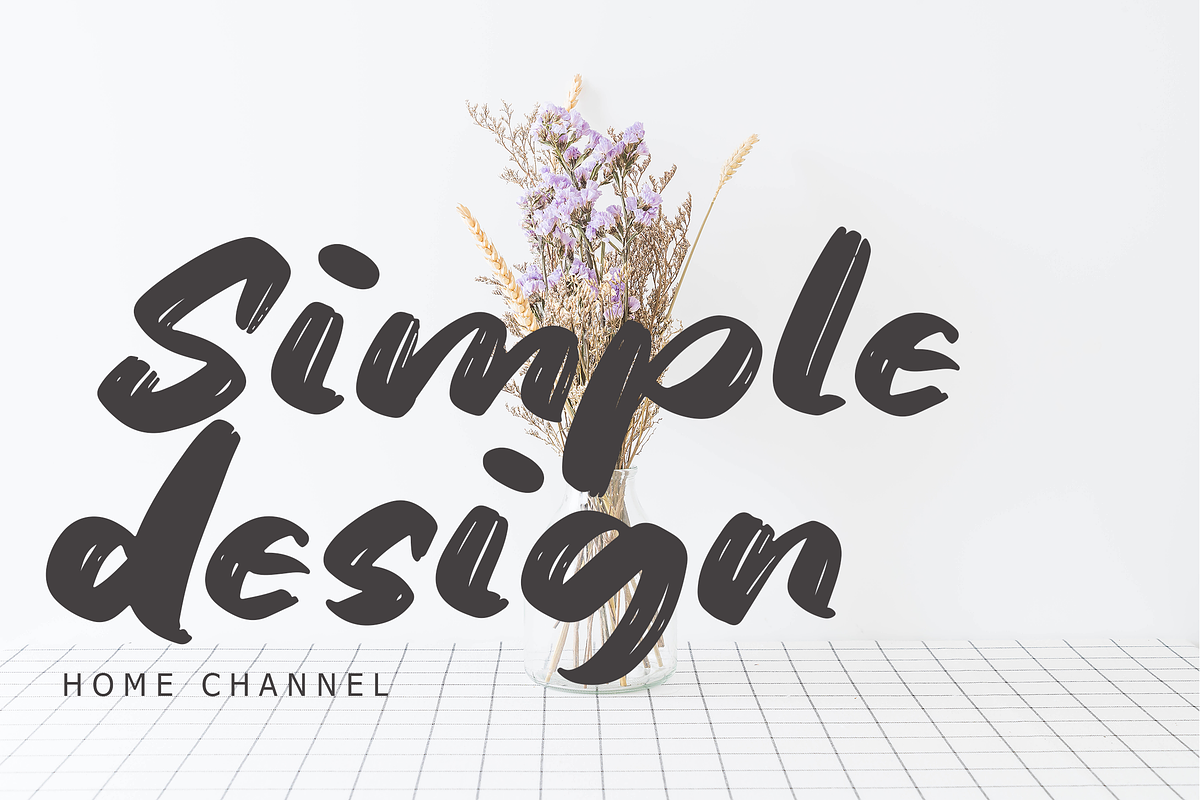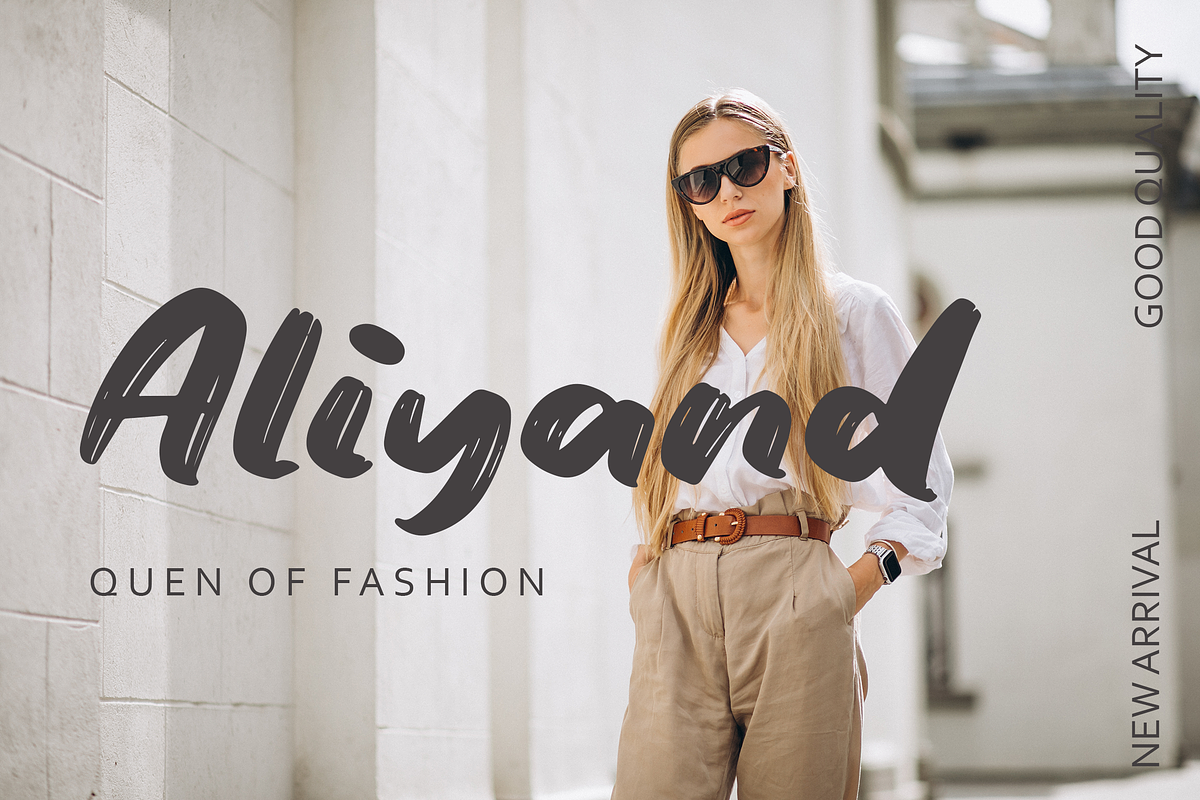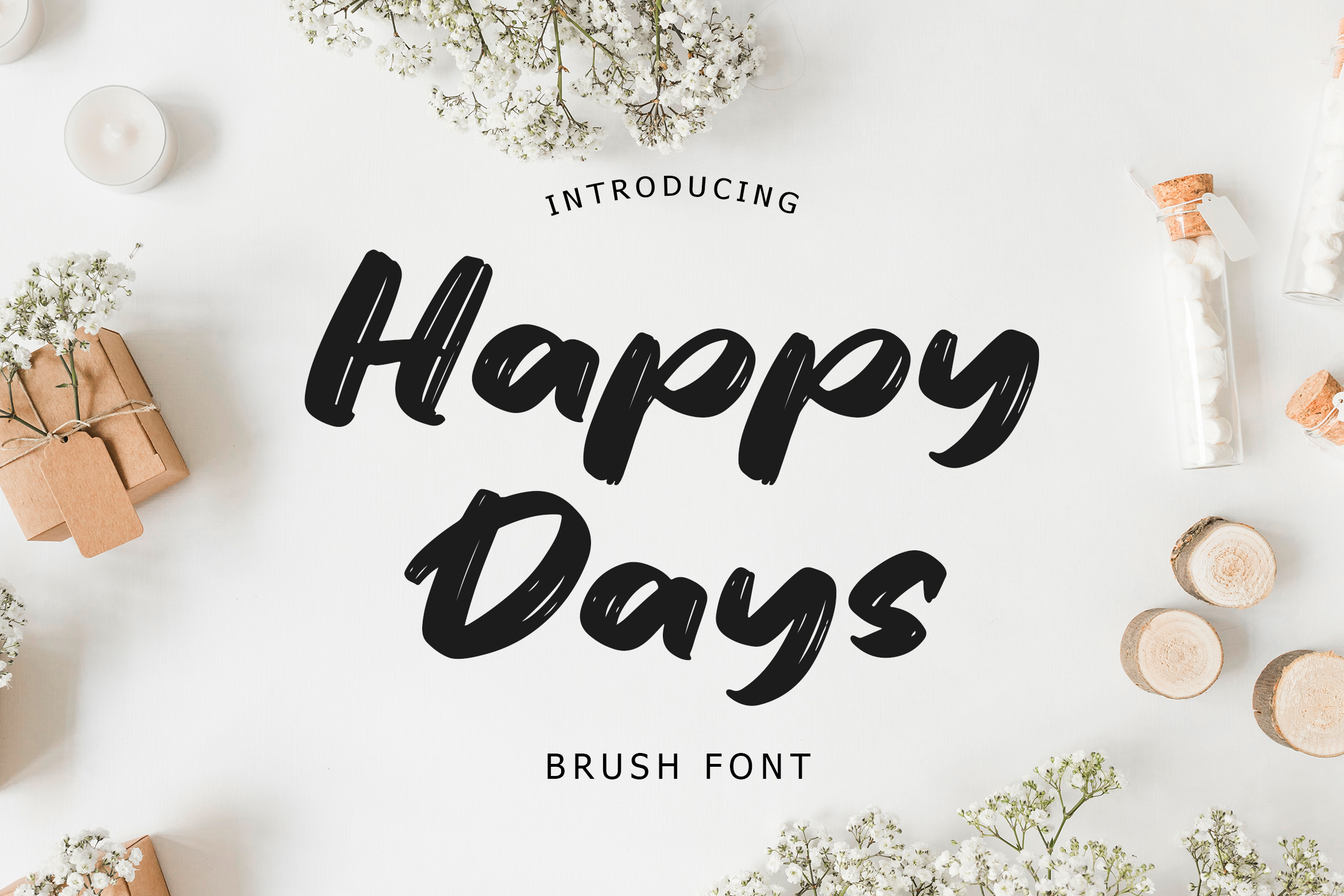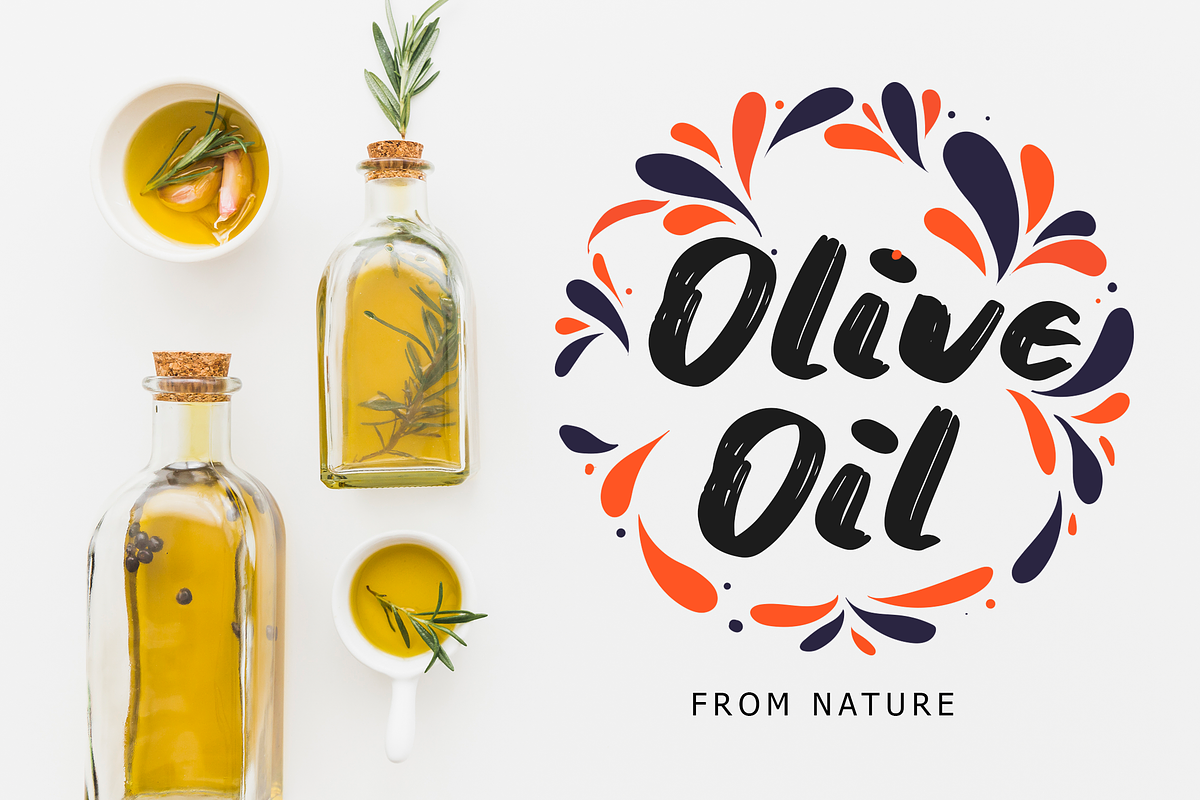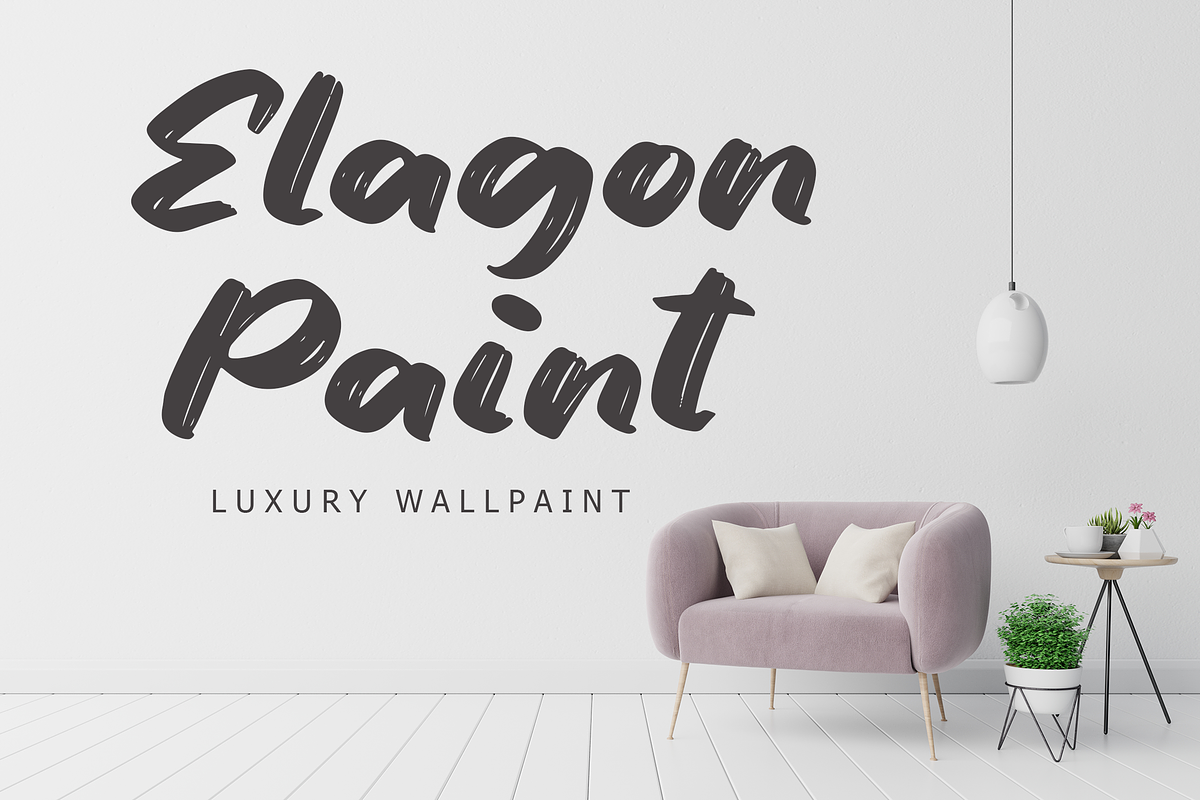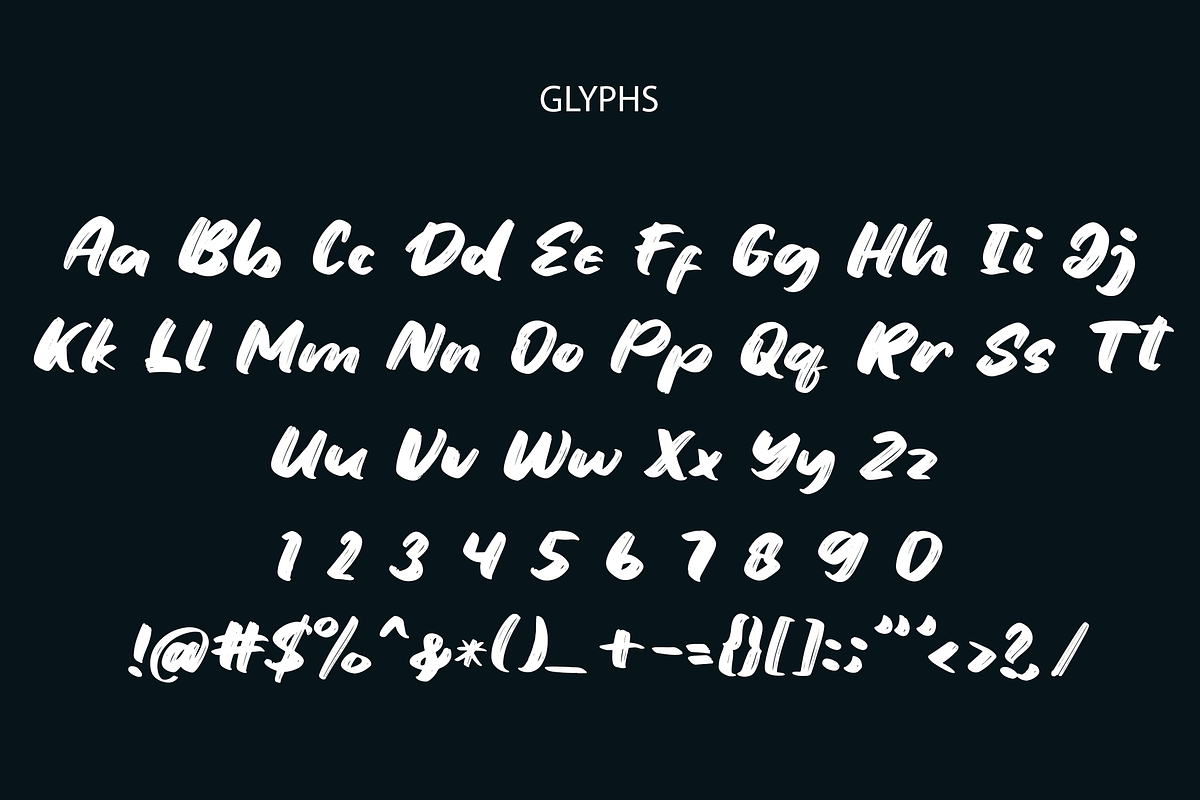
Happy Days Brush Display Font
Happy Days is a beautiful brush display font can make your text appear elegant, luxurious, and modern!
Happy Days is perfect for branding projects, logo, wedding designs, social media posts, advertisements, product packaging, tshirt design, product designs, label, photography, watermark, invitation, stationery and any projects.